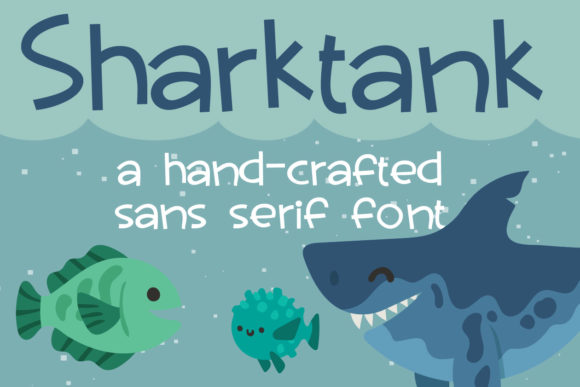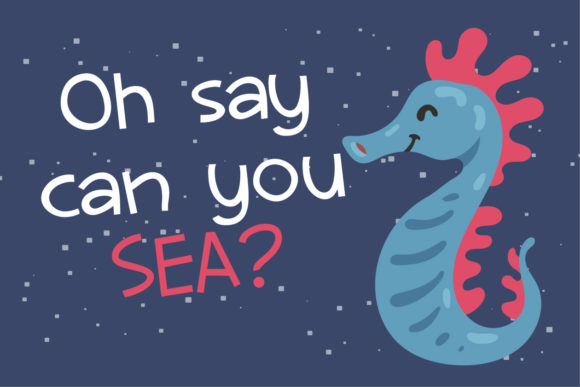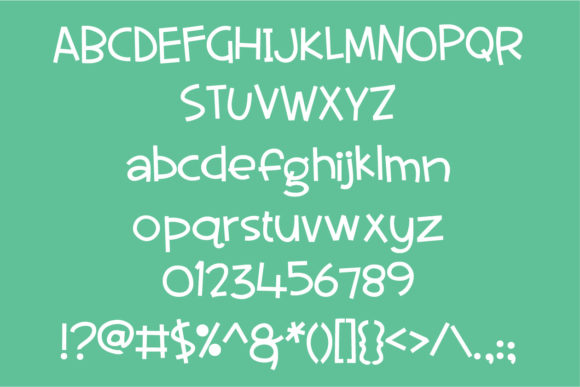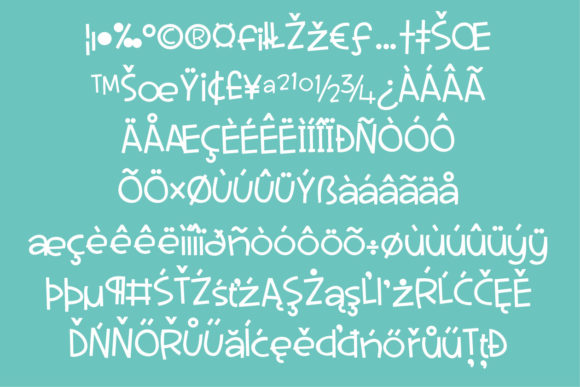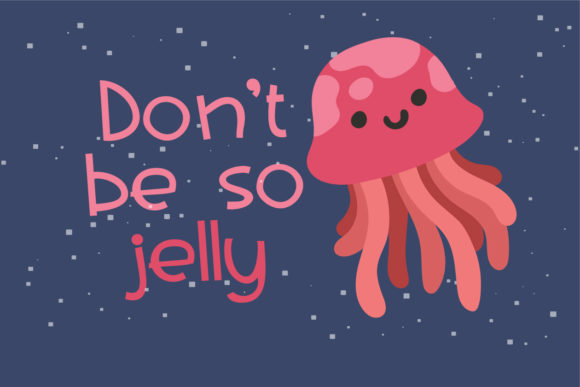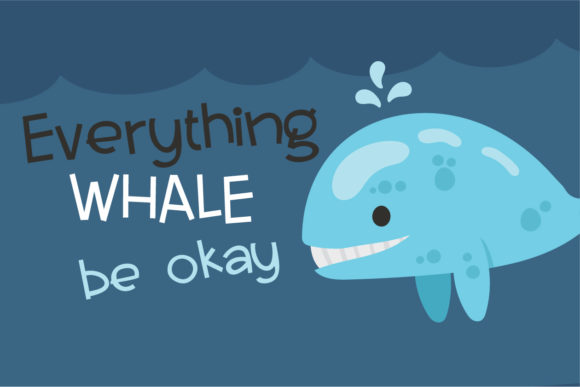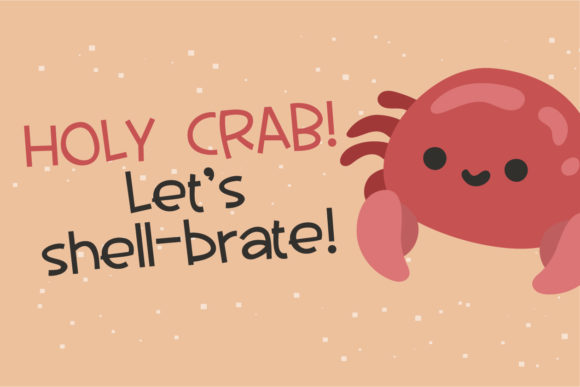
PN Sharktank Font
About PN Sharktank Font
Sharktank is a fun handwritten font. This enchanting font will turn any creative idea into a true standout. Get creative with its childlike playfulness, and use it to brighten up any kids and school project!